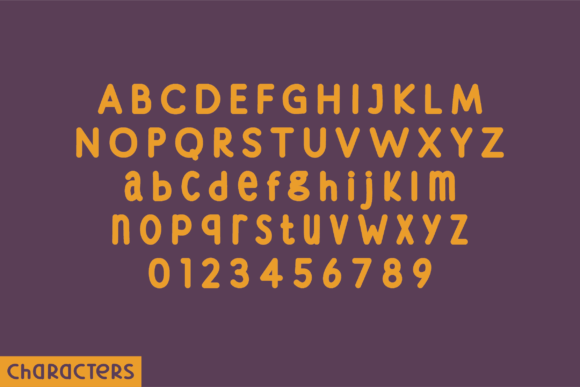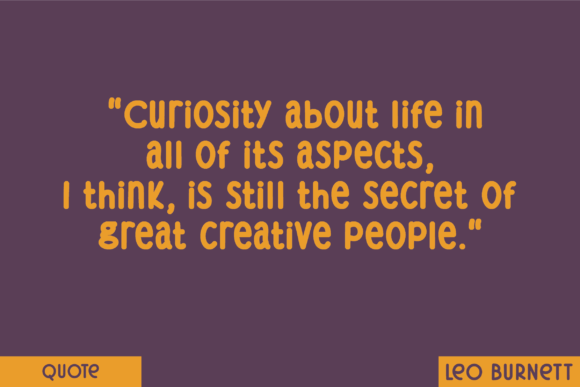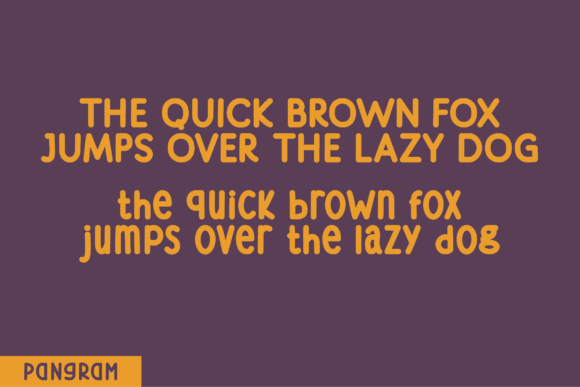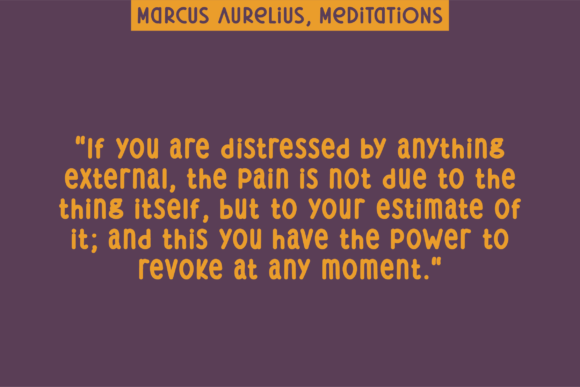
Introduction to Rockefeller Font
Rockefeller is a natural handwritten font without changing a single node in each character’s indentation, this makes this font very interesting and unique.
Perfect for quotes, notes, tees, and any product design .